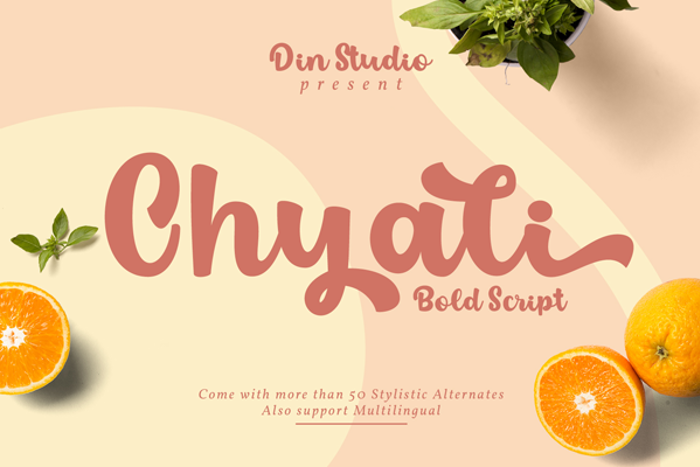
Chyali Font
Product Description :
Chyali is a bold script font for food packaging. It can elevate your project designs. Chyali font includes a full set of handwritten uppercase and lowercase letters.
Features include:
• Alternates
• Swashes
• Multilingual Supports
• Numerals and Punctuations